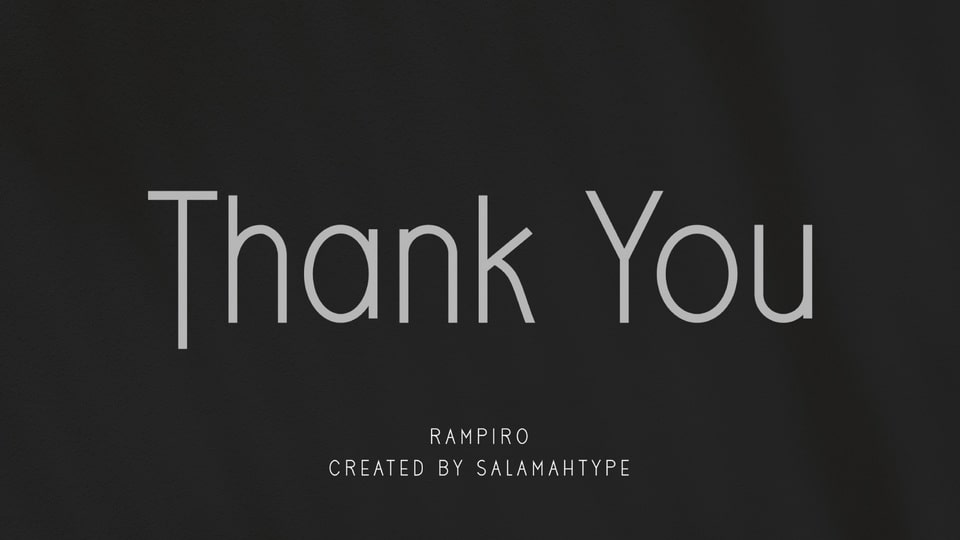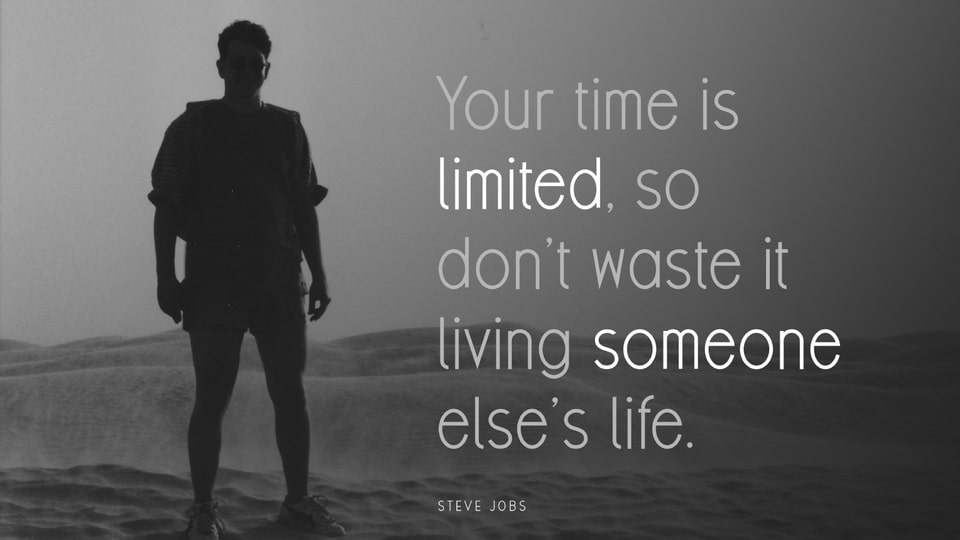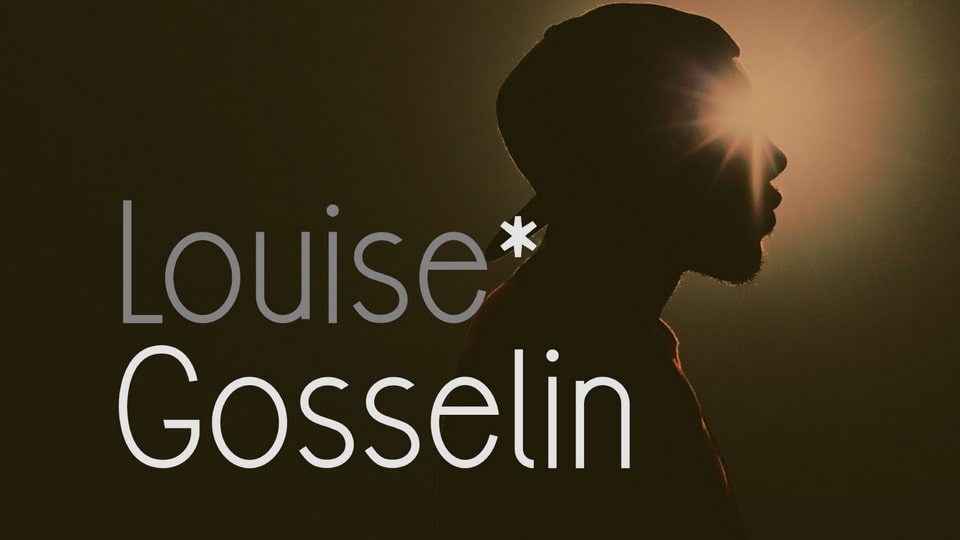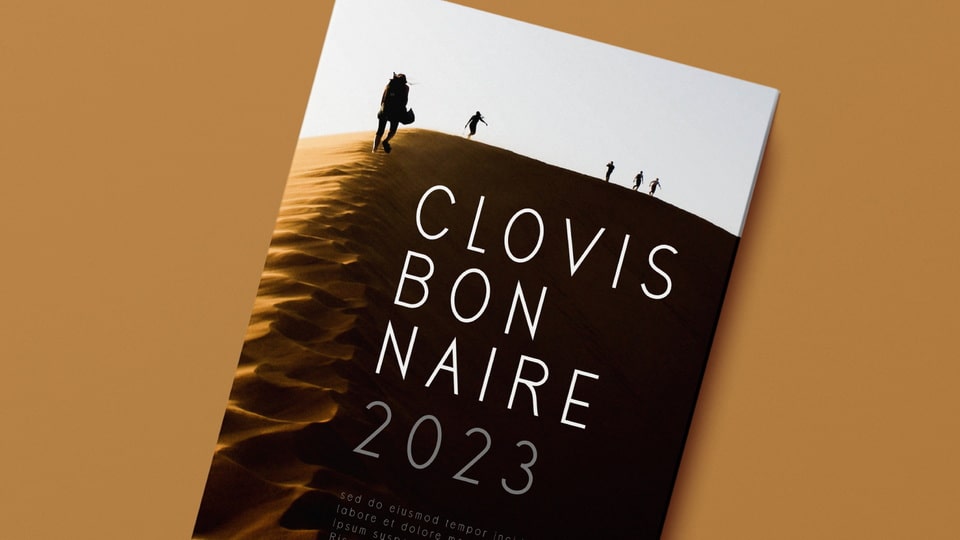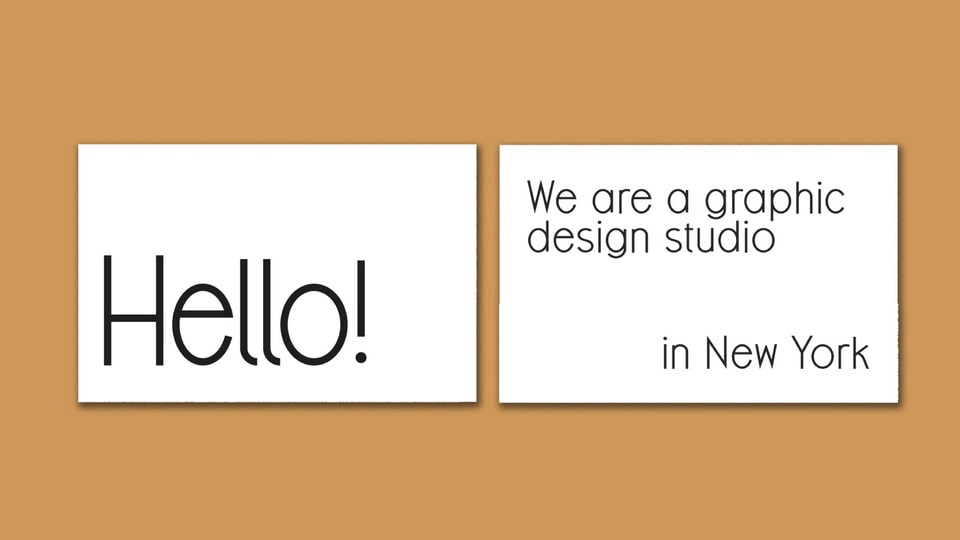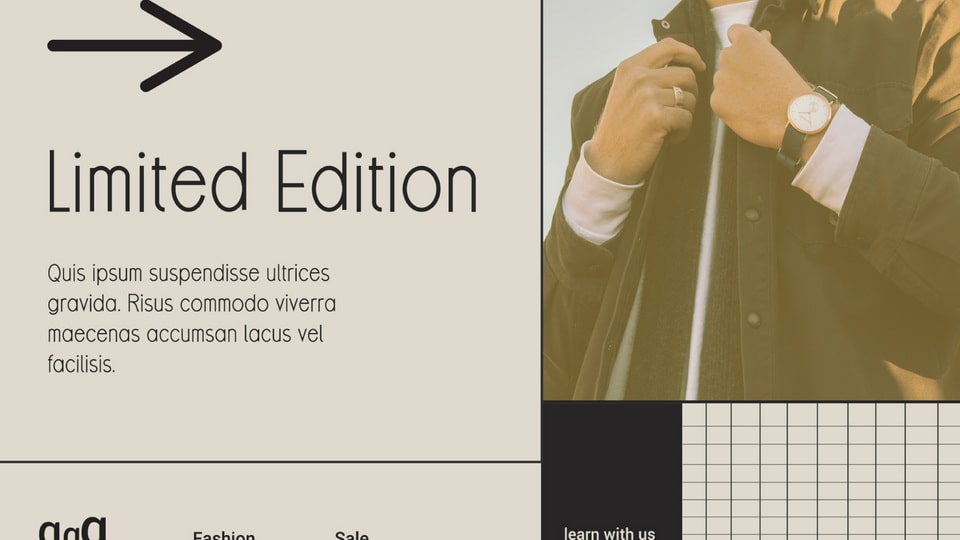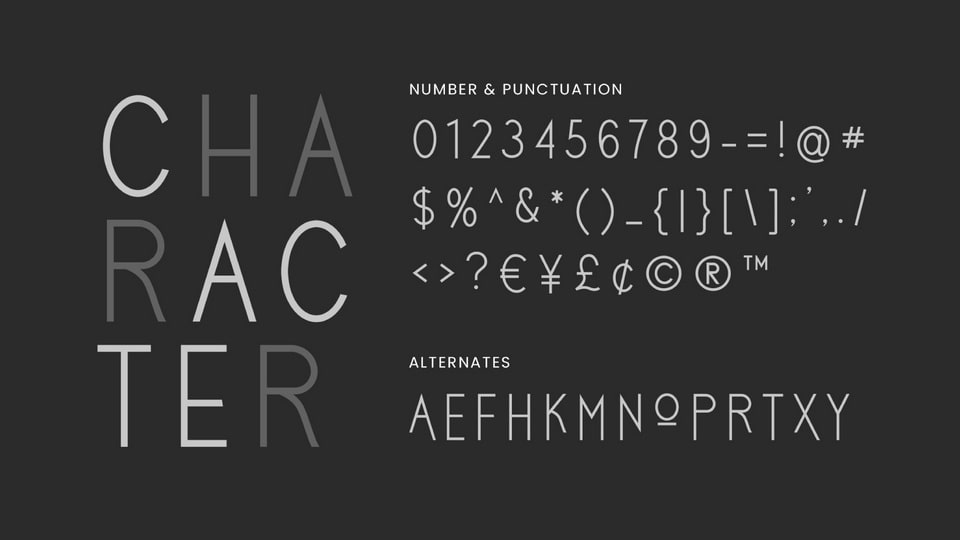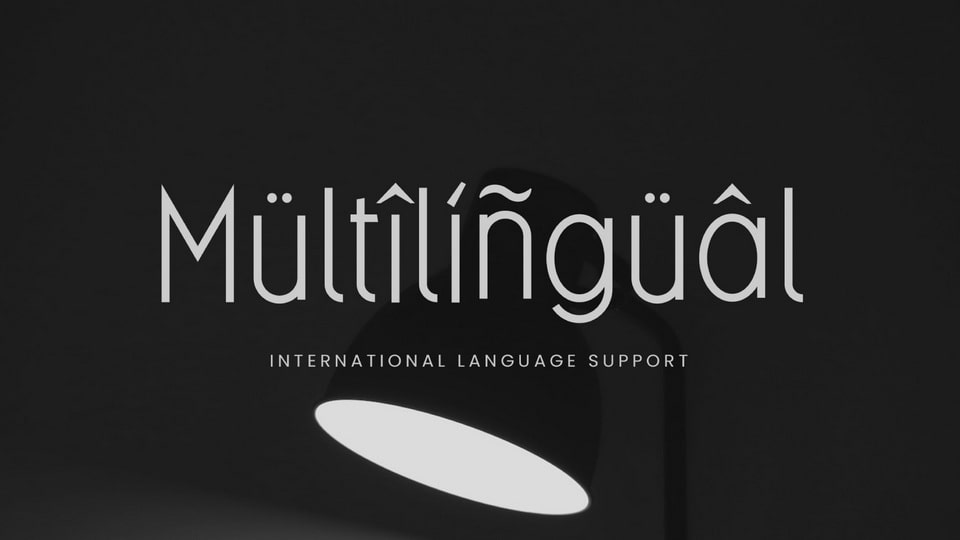
Rampiro Font A minimalist sans serif font called “Rampiro” is perfect for branding projects, logos, social media posts, advertisements, product packaging, wedding invitations, product designs, labels, photography, watermarks, stationery, and more. DOWNLOAD Facebook Twitter Pinterest VK Share by email Designed by: Salamahtype Website Support License: Free for personal use April 18, 2025 featured in Sans Serif By Fontesk